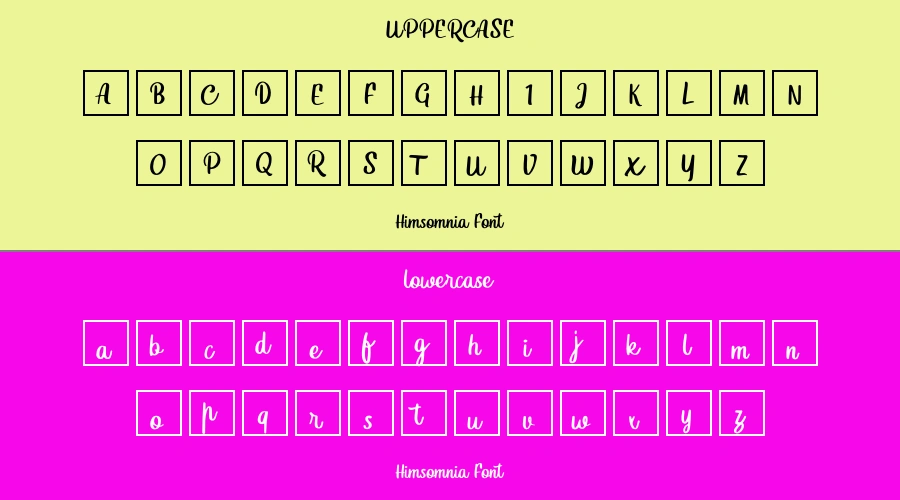
About Himsomnia Font
Himsomnia Font stands out for its distinctive combination of brush influence and versatility. Ideal for event branding, it provides the consistency and technical precision that professional projects demand. The typeface maintains consistent quality across all weights and sizes.
Key features include refined impactful forms and practical multiple weights, enhancing typographic expression. In identification tags applications, Himsomnia Font demonstrates exceptional output consistency. The ascender height and educational suitability contribute to its distinctive character and professional appeal.